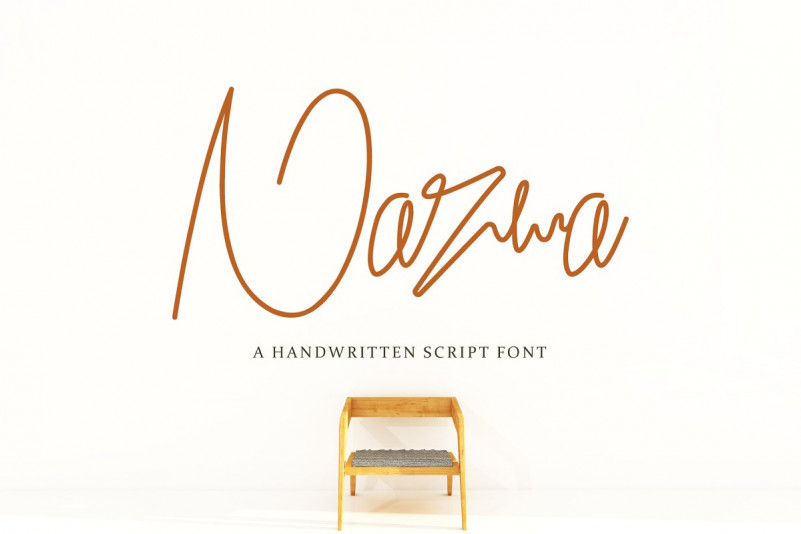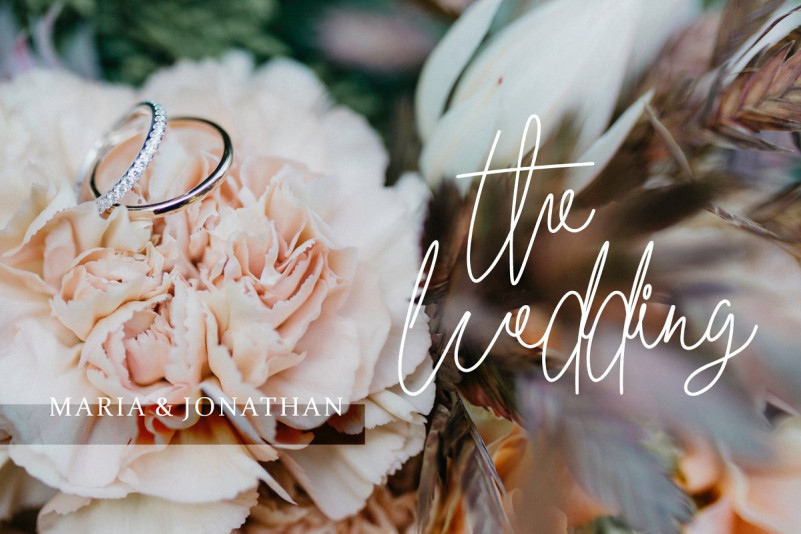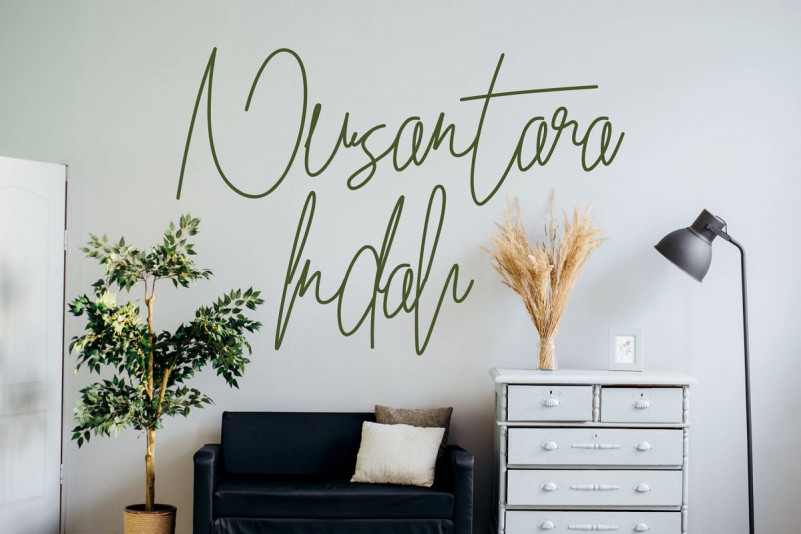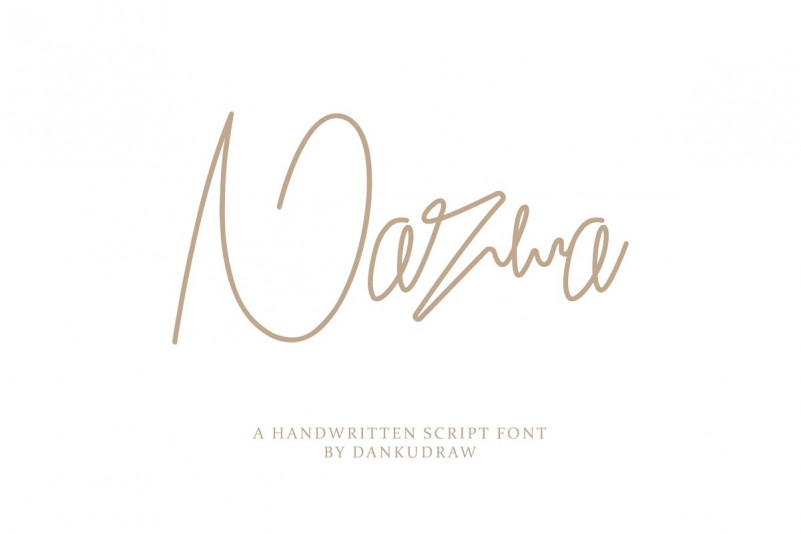
Nazwa Handwritten Font
This font is ideal for branding and decorate your any project, are perfect for wedding invitation. Also with their help, you can create a logo or beautiful frame for your home. Or just use for your small business, book covers, stationery, magazines and more.